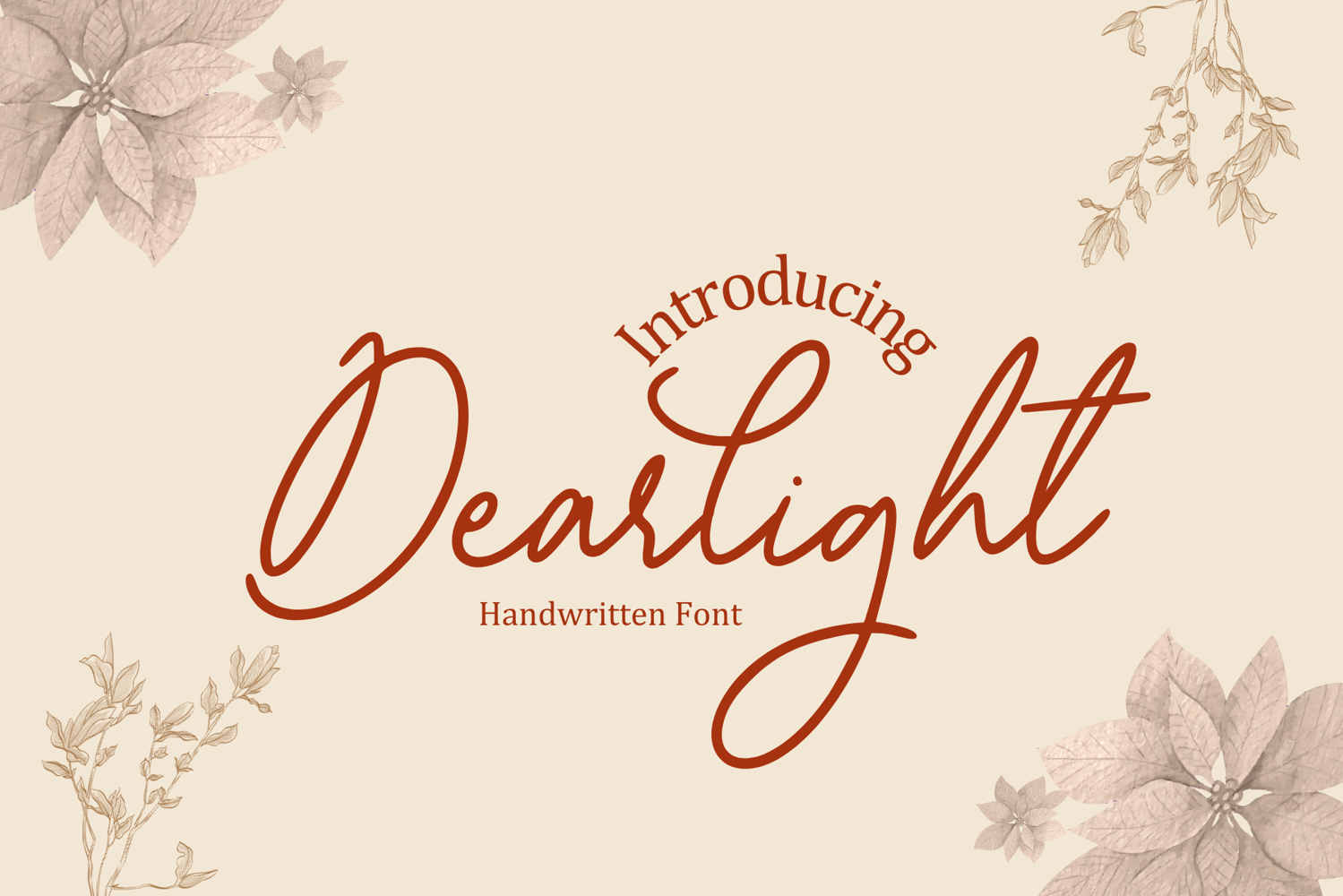
Dearlight
Dearlight is a graceful handwritten script font that captures the essence of heartfelt letters and gentle light. With flowing curves and delicate strokes, it brings a individual and elegant charm to any design. Perfect for wedding invitations, love notes, branding, feminine logos, and social media quotes, Dearlight adds a touch of romance and sophistication wherever it’s used